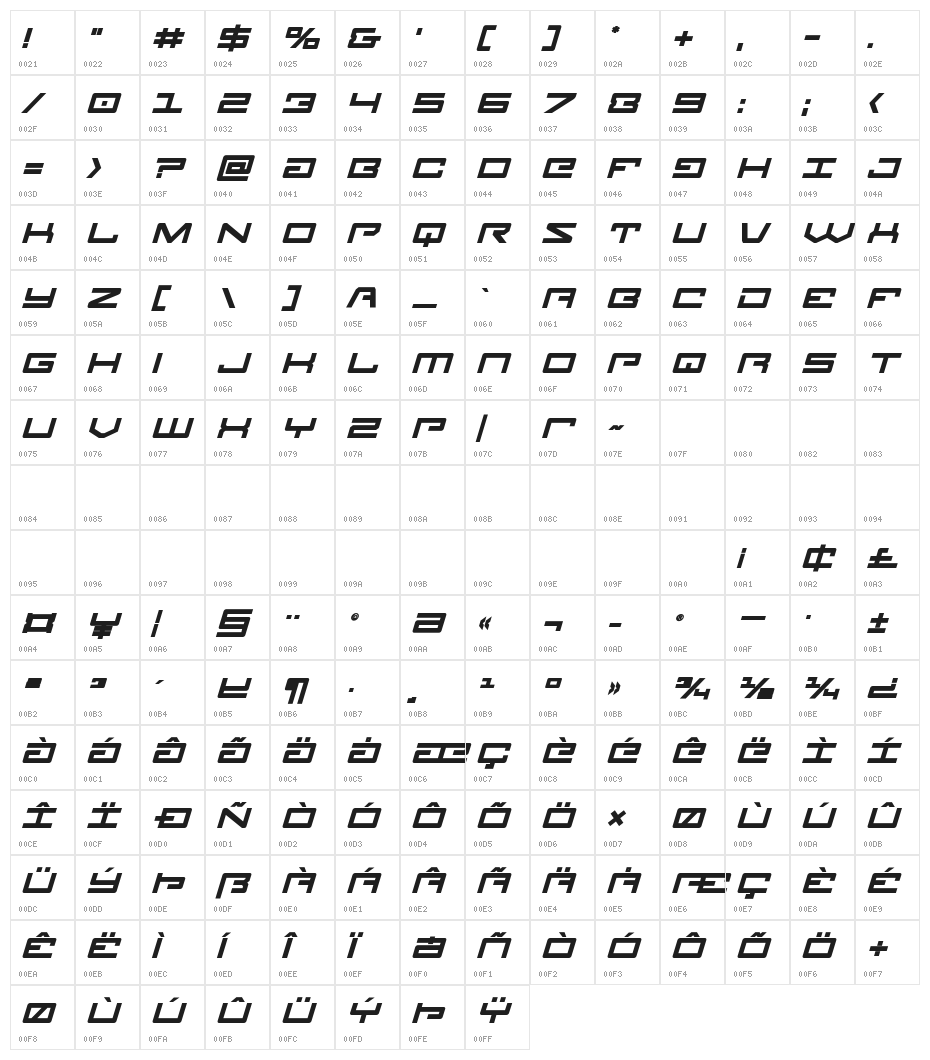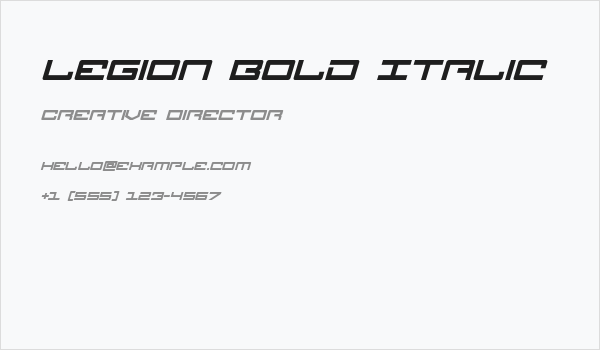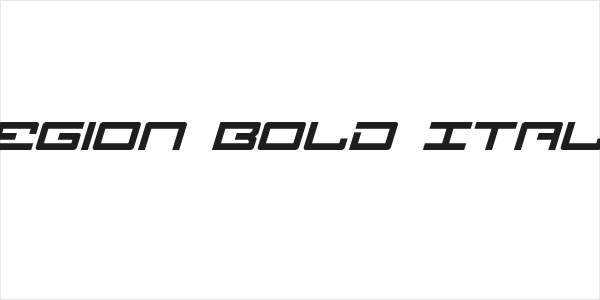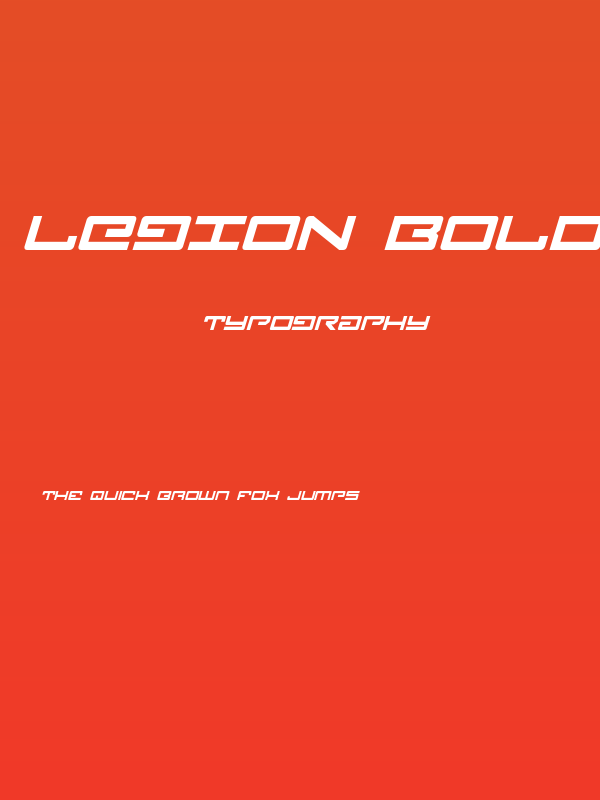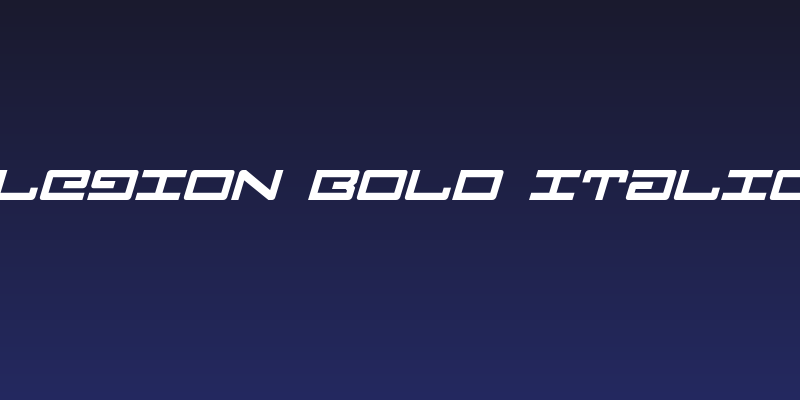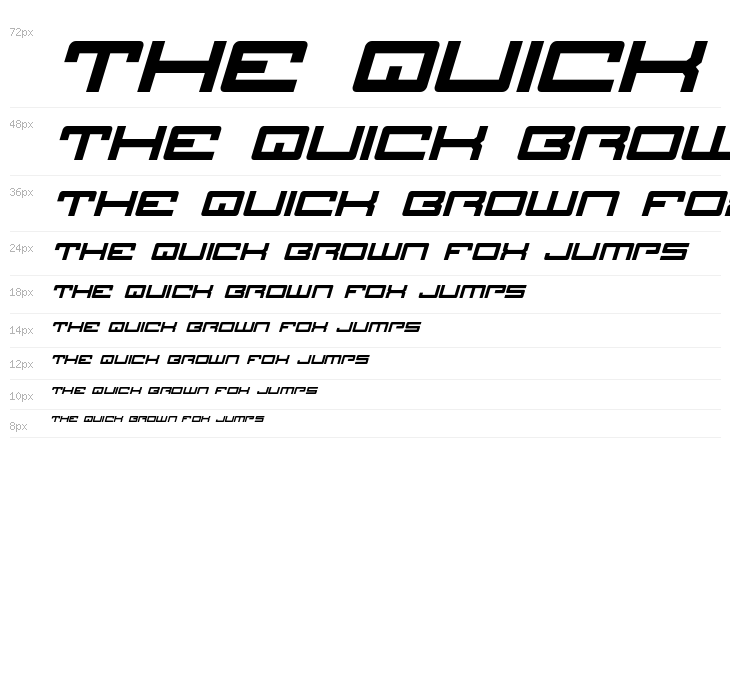
Legion Bold Italic Font
Legion Bold Italic Description
This font features a bold and italicized style with a futuristic and dynamic appearance. The characters are angular and geometric, giving a sense of speed and modernity. The uppercase and lowercase letters maintain a consistent slant, enhancing the italic effect. The numbers and special characters follow the same design principles, ensuring uniformity across all glyphs. The font's sharp edges and clean lines make it suitable for projects that require a strong, impactful visual presence.
| Proposed Projects | Ideal for sci-fi themed designs, video game titles, technology branding, and sports team logos. |